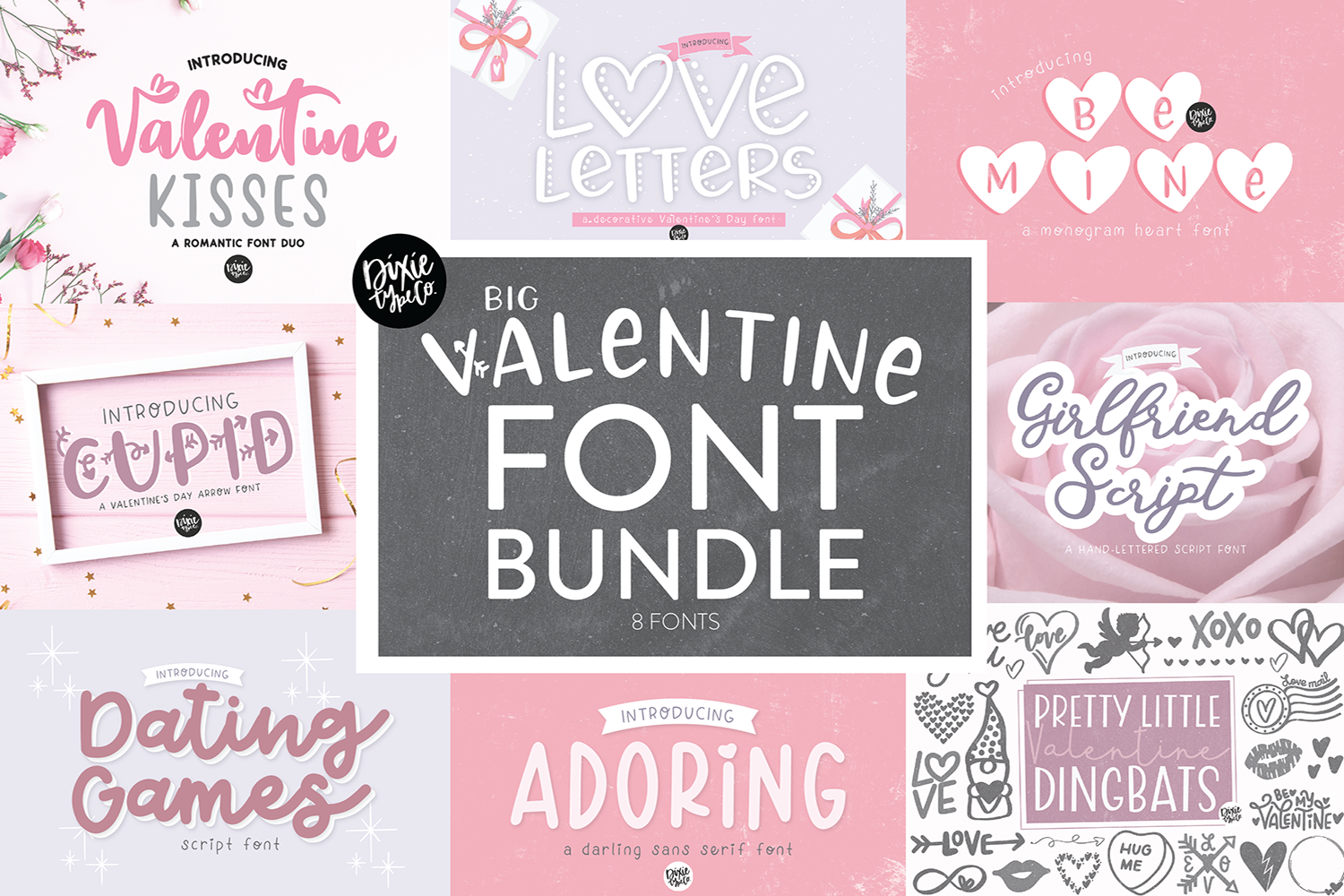
VALENTINE'S DAY Font Bundle
8 NEW Valentine's day Fonts! These fonts were all hand-lettered with a brush and ink, or iPad Pro.The 8 fonts included are:
VALENTINE KISSES (FONT DUO) LOVE LETTERS ADORING DATING GAMES VALENTINE DINGBATS BE MINE CUPID GIRLFRIEND